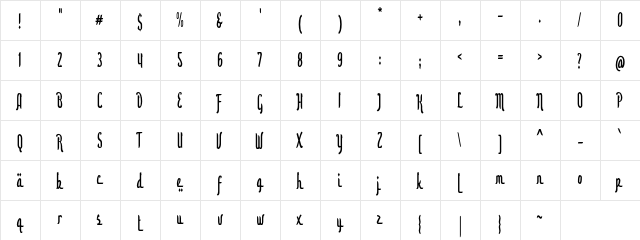
aAidilfitri Regular
Design Context for aAidilfitri Typeface
aAidilfitri is a composed and adaptable typeface that performs quietly and consistently across a wide range of design contexts.